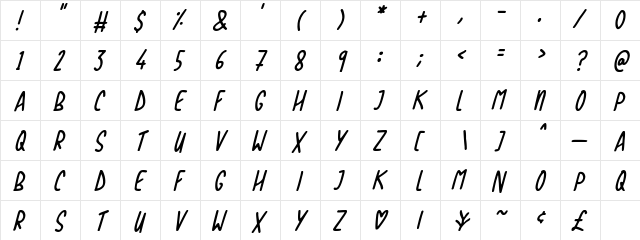
Love The Trees Italic
Design Context for Love The Trees Typeface
Love The Trees takes a measured approach to typography — its balanced proportions and neutral character make it a reliable workhorse for both digital and print work. The dynamic lean of this cut emphasises speed and emphasis in any layout.
Pro Tip: Try Love The Trees for annotation and caption copy alongside an upright companion — the contrast in angle creates a dynamic but ordered typographic system.